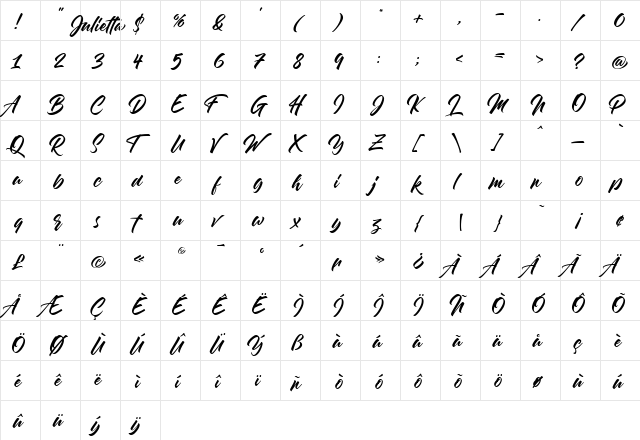
Julietta Regular Font Preview
Julietta Regular
Julietta Regular Font Details
| Foundry | Clement Nicolle - StereoType |
| Designer | Stephane Lopes |
Design Context for Julietta Typeface
Julietta is a composed and adaptable typeface that performs quietly and consistently across a wide range of design contexts.